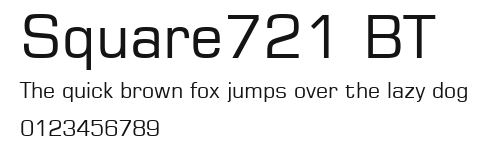
Square721 BT Preview
About Square721 BT.ttf
Square721 BT.ttf is a modern, elegant sans-serif font designed for ultimate readability and visual harmony. Perfect for branding, headlines, web design, and print materials.